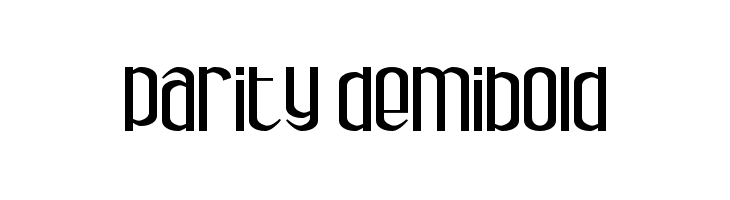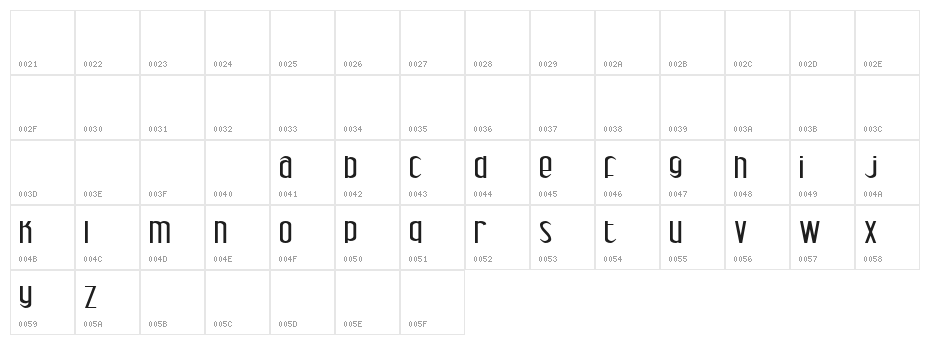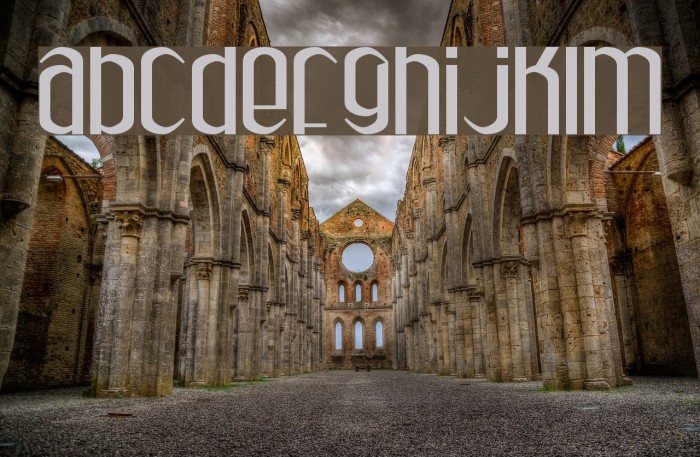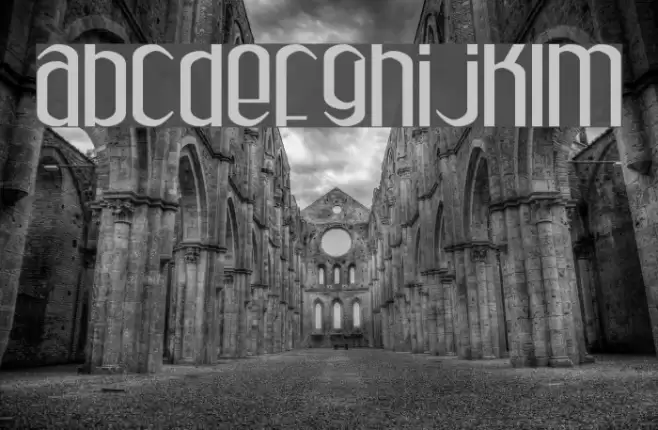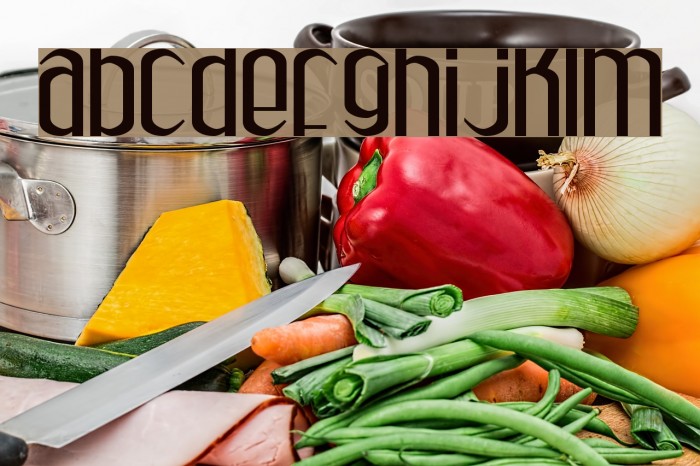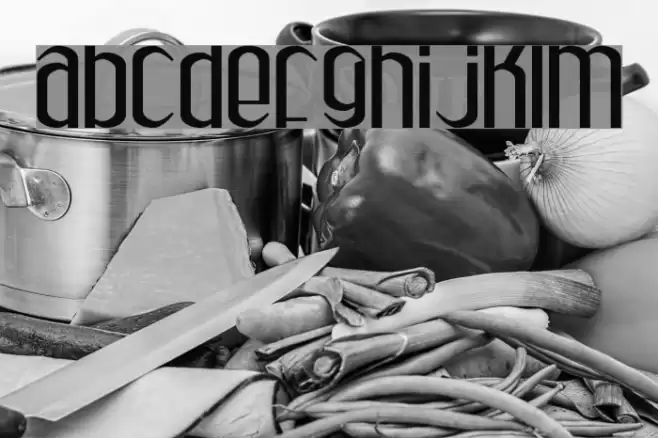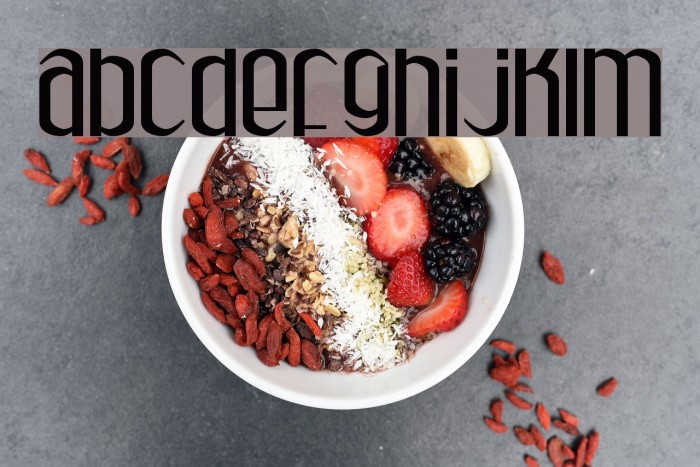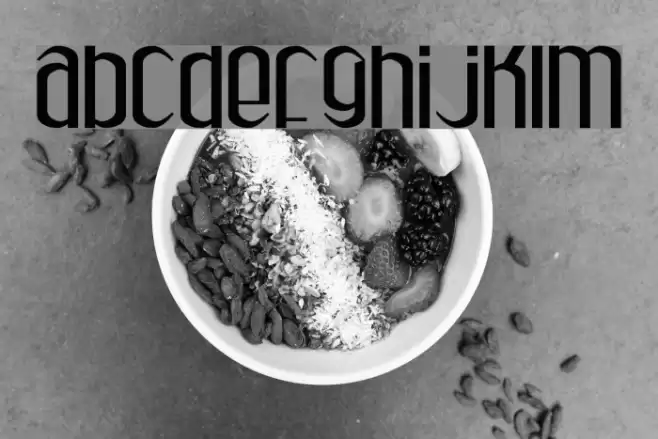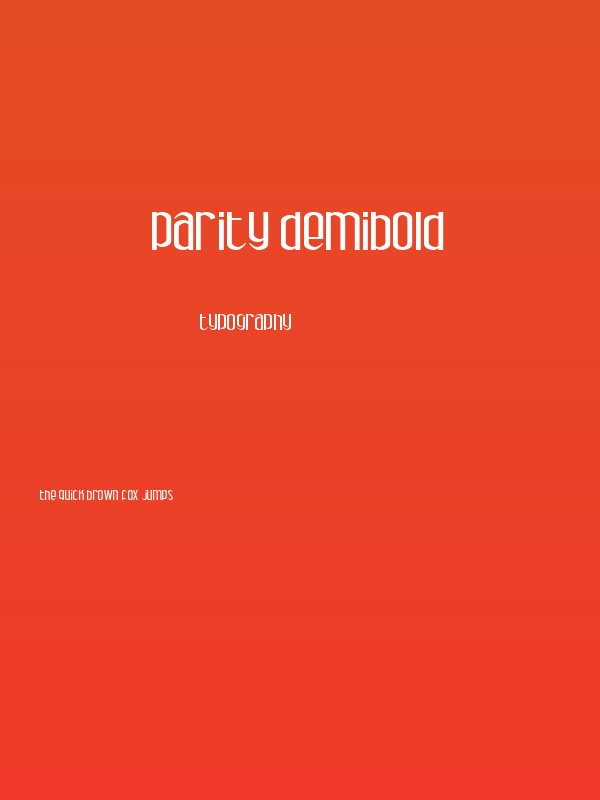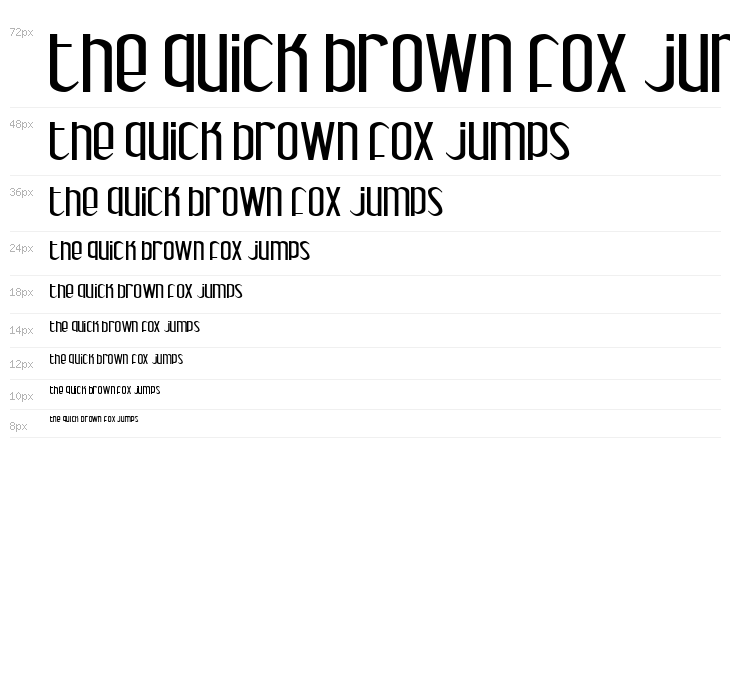
Parity DemiBold Font
Parity DemiBold Description
This font features a modern and geometric design with a unique blend of straight lines and subtle curves. The characters are tall and narrow, giving it a condensed appearance. The uppercase letters exhibit a strong presence with consistent stroke widths, while the lowercase letters maintain a harmonious balance with slightly rounded edges. The font's clean and sleek style makes it suitable for contemporary design projects. Its distinctive look is achieved through the combination of sharp angles and smooth transitions, creating a visually appealing and versatile typeface.
| Proposed Projects | Ideal for branding, advertising, editorial design, and digital interfaces. |